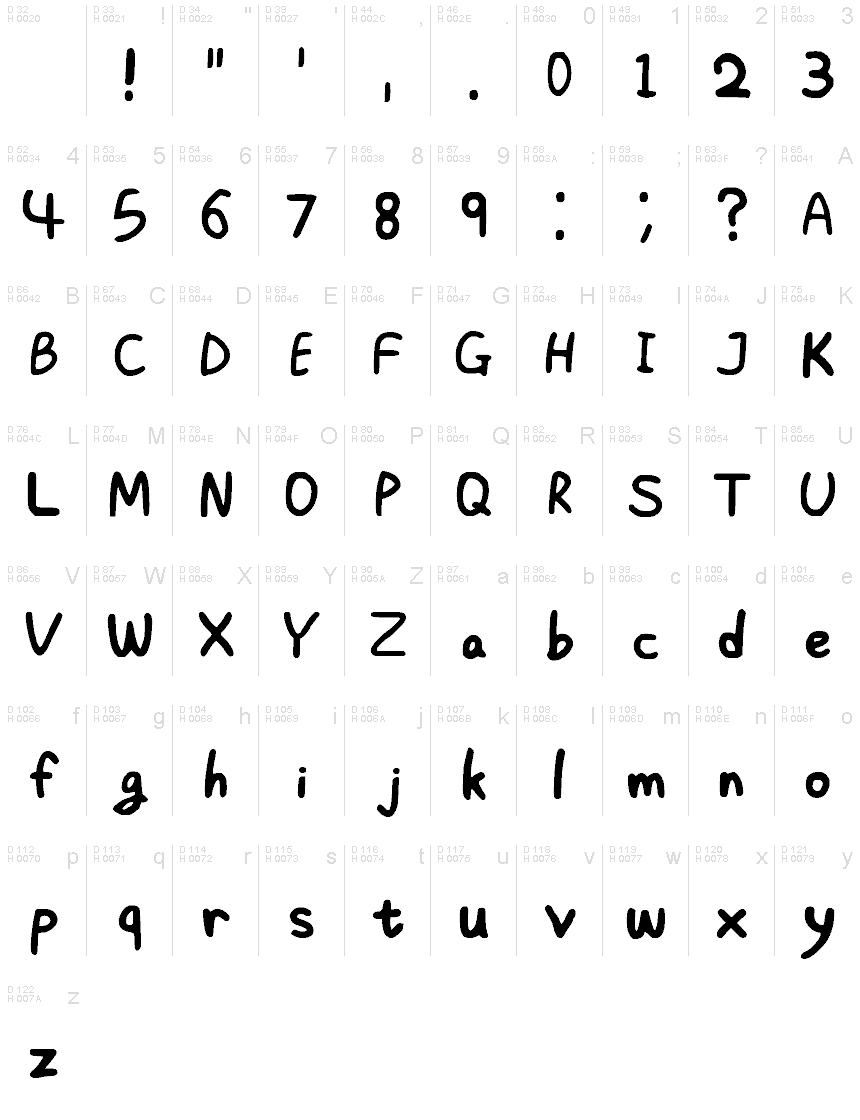
Marker Font Regular
Marker font is a handwritten font with relaxed and human-centered qualities. It has an authentic irregular style that resembles words we might write on a napkin or on a simple note to someone important to us. Ideal for when you’re in search of that personal touch, it feels casual and extremely approachable without sacrificing readability.